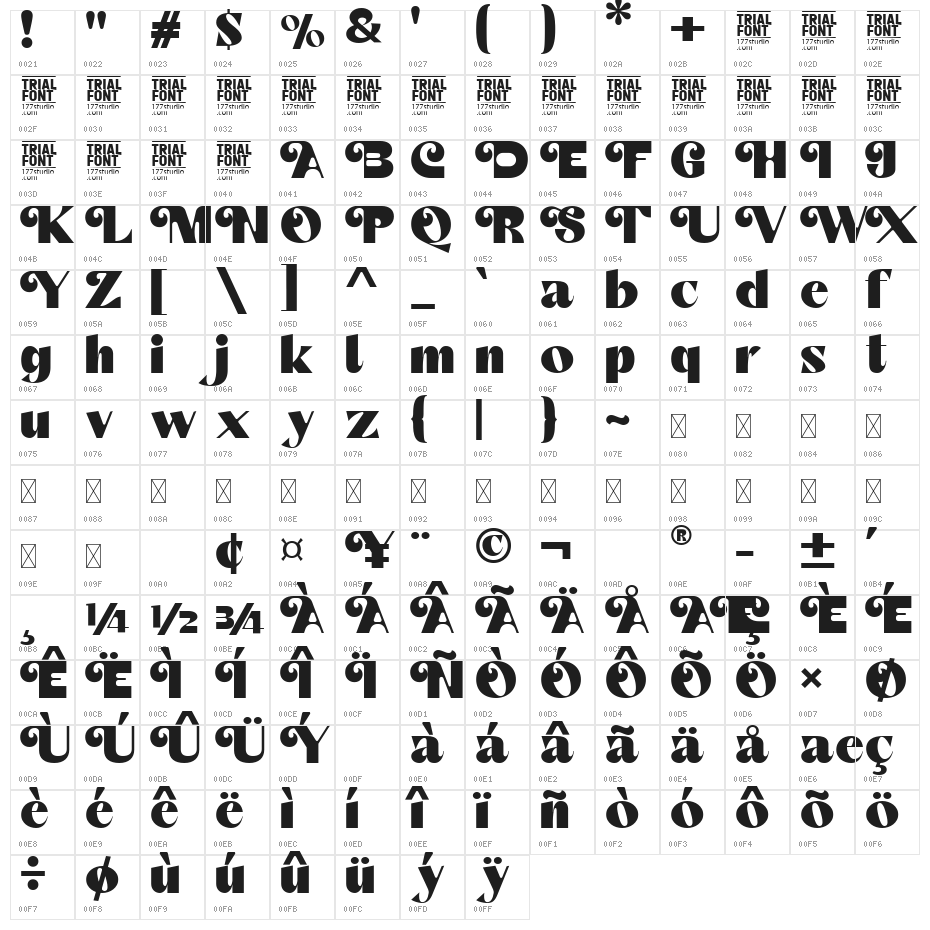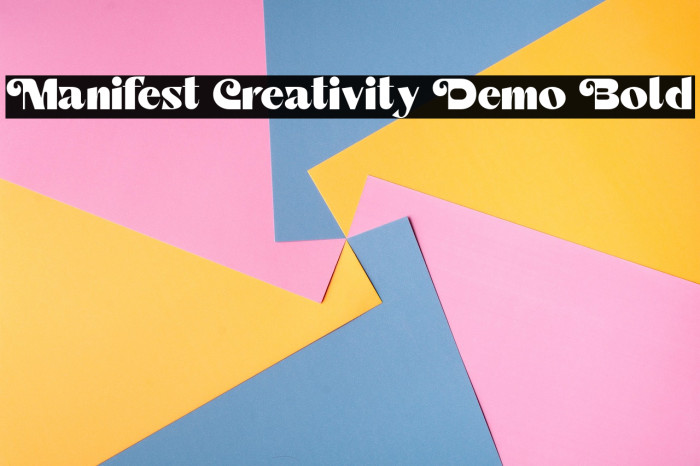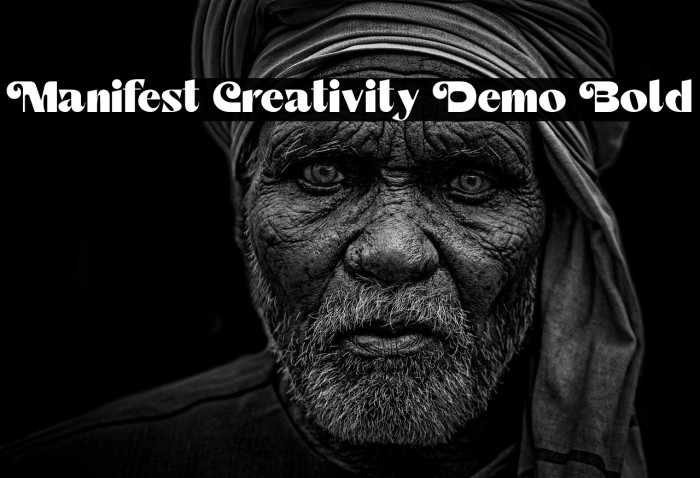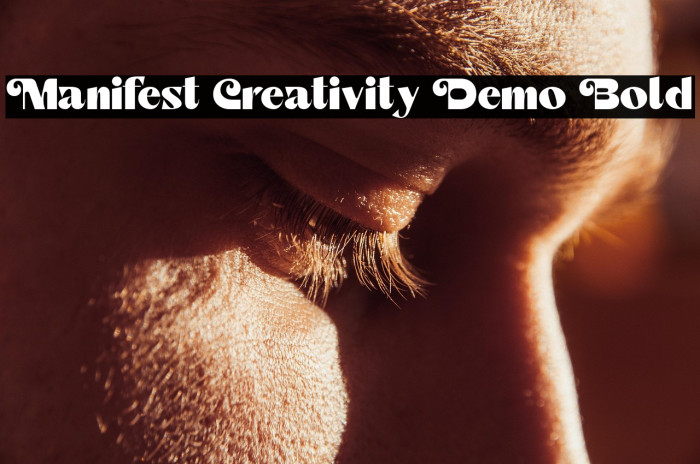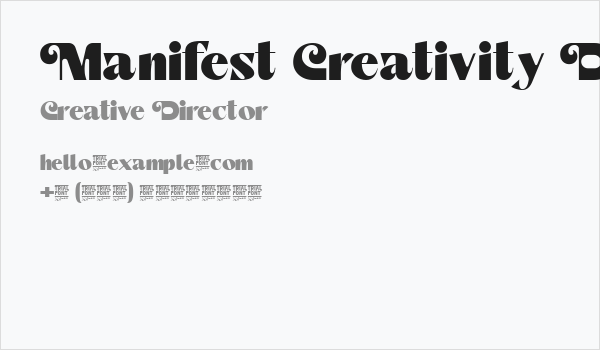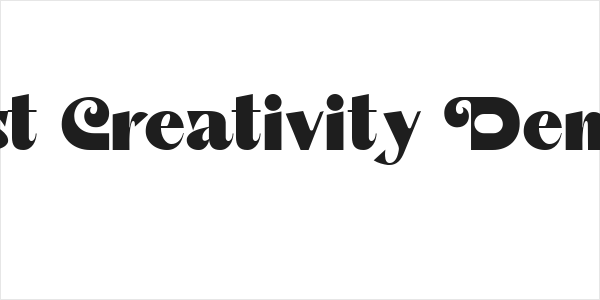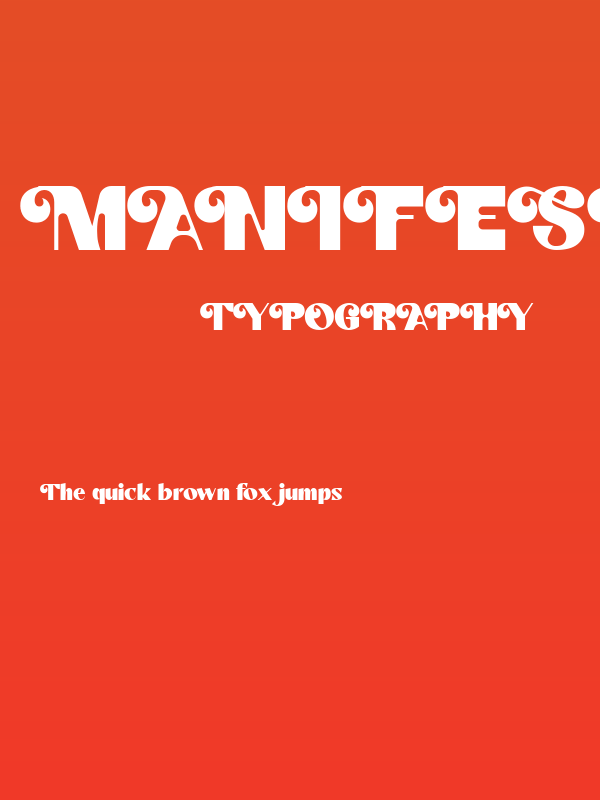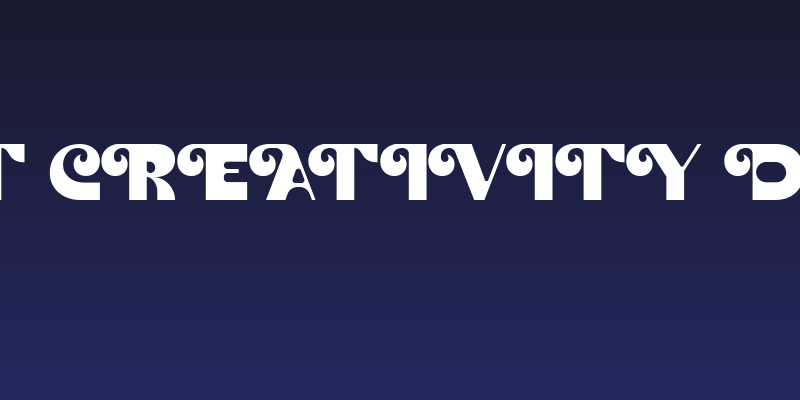
Manifest Creativity Demo Bold Font
Manifest Creativity Demo Bold Description
This font features a bold and decorative style with a unique flair. Each character is crafted with a playful and artistic touch, incorporating swirls and curves that add a whimsical element to the overall design. The uppercase letters are particularly striking, with intricate details that make them stand out. The lowercase letters maintain a consistent style, ensuring readability while still offering a creative twist. The numbers and special characters are equally well-designed, fitting seamlessly with the alphabet. This font is perfect for projects that require a bold statement and a touch of creativity.